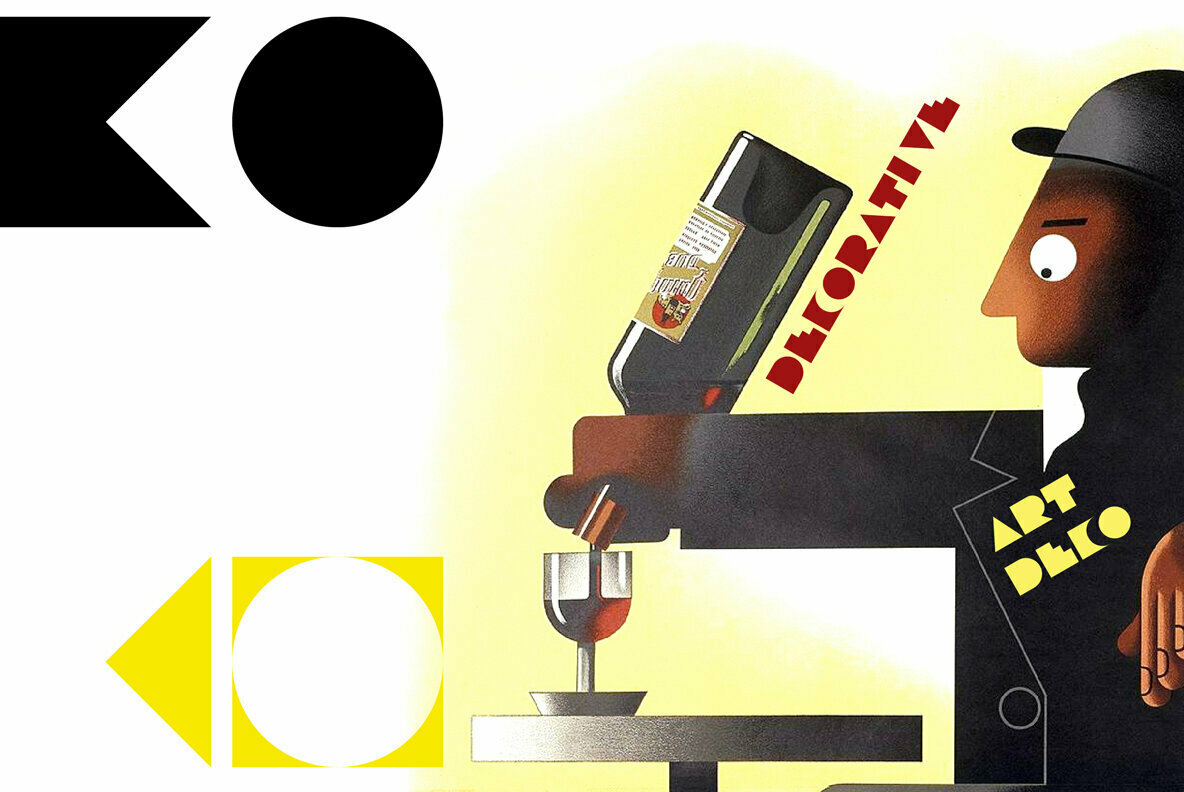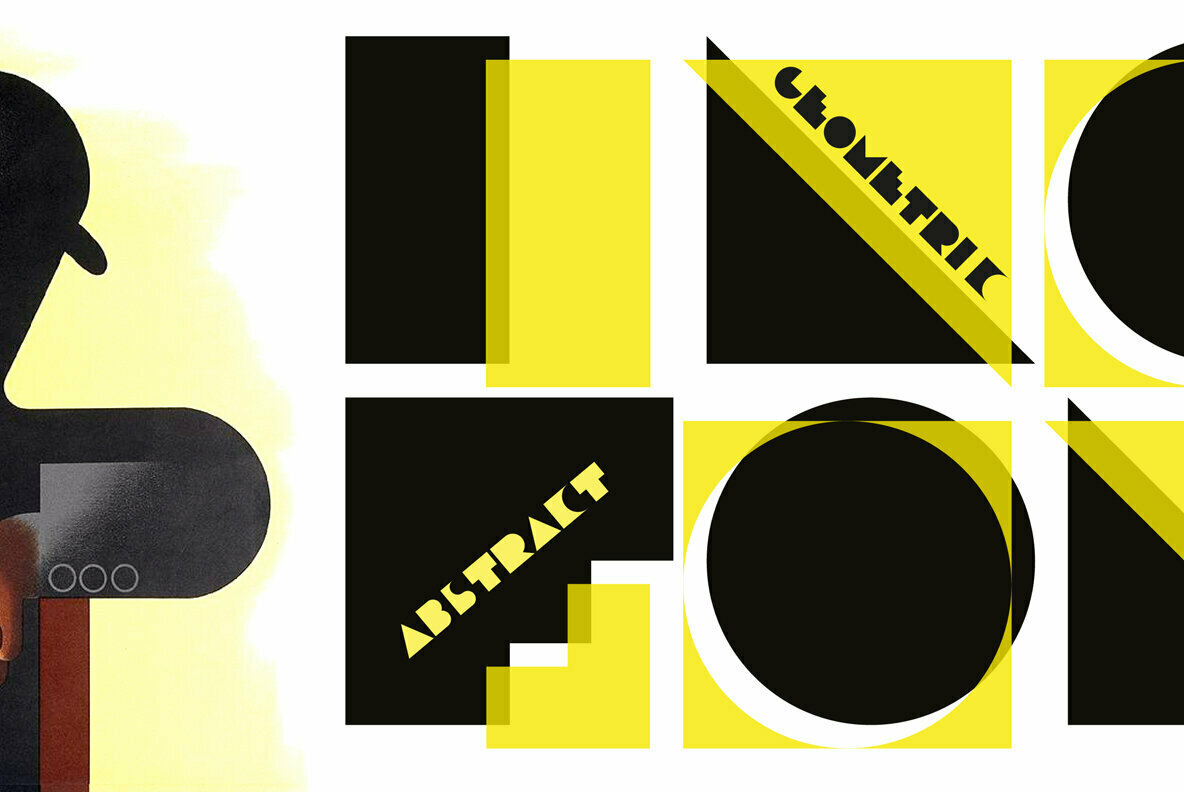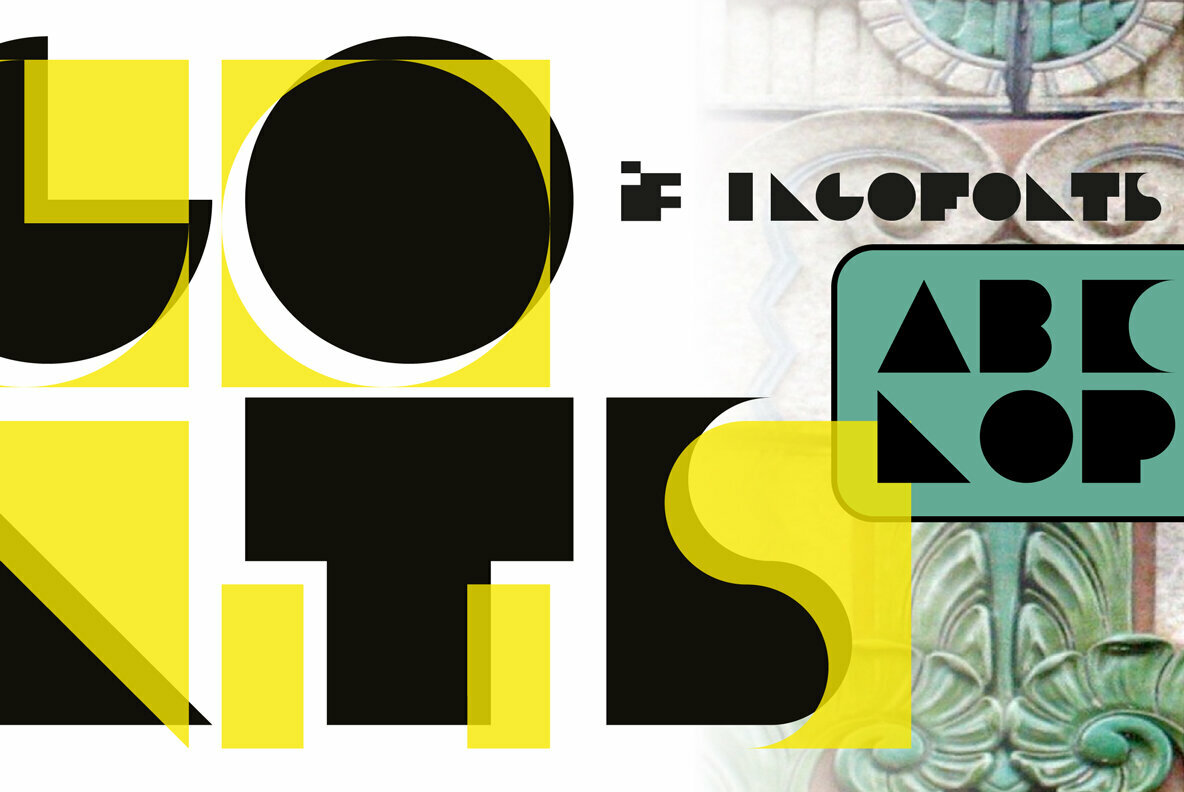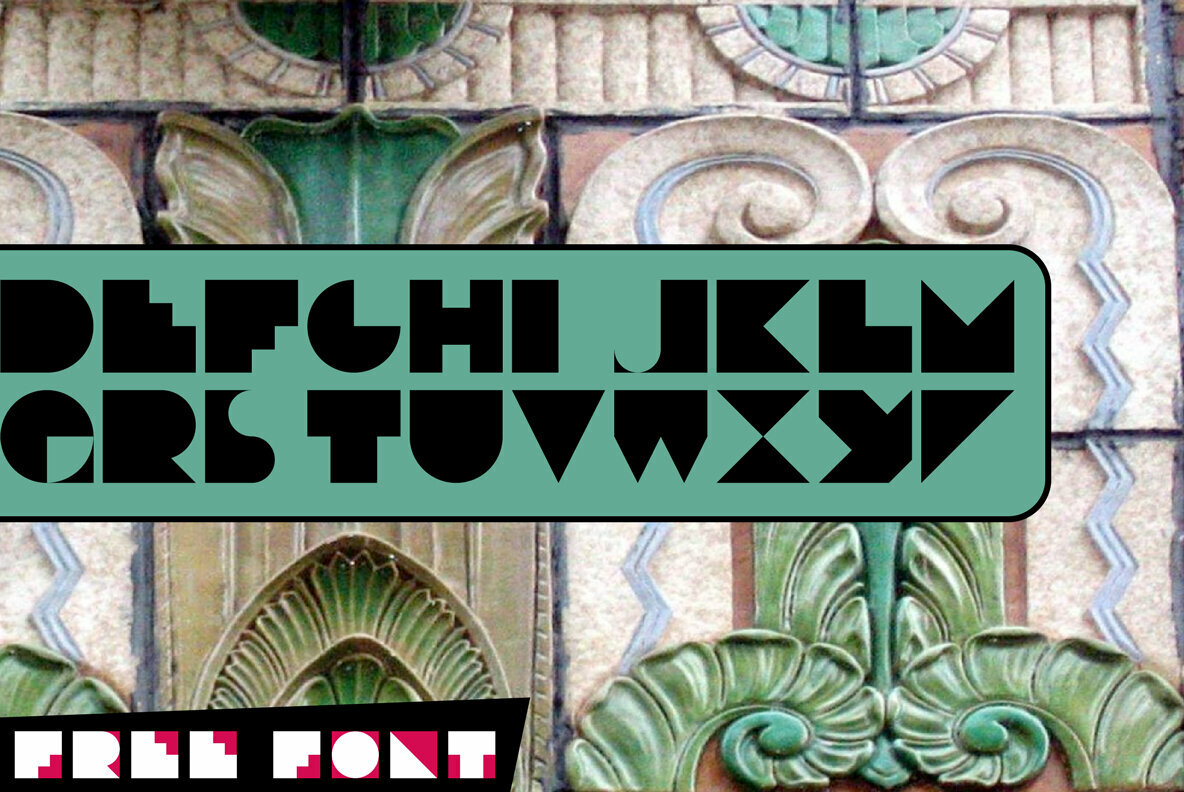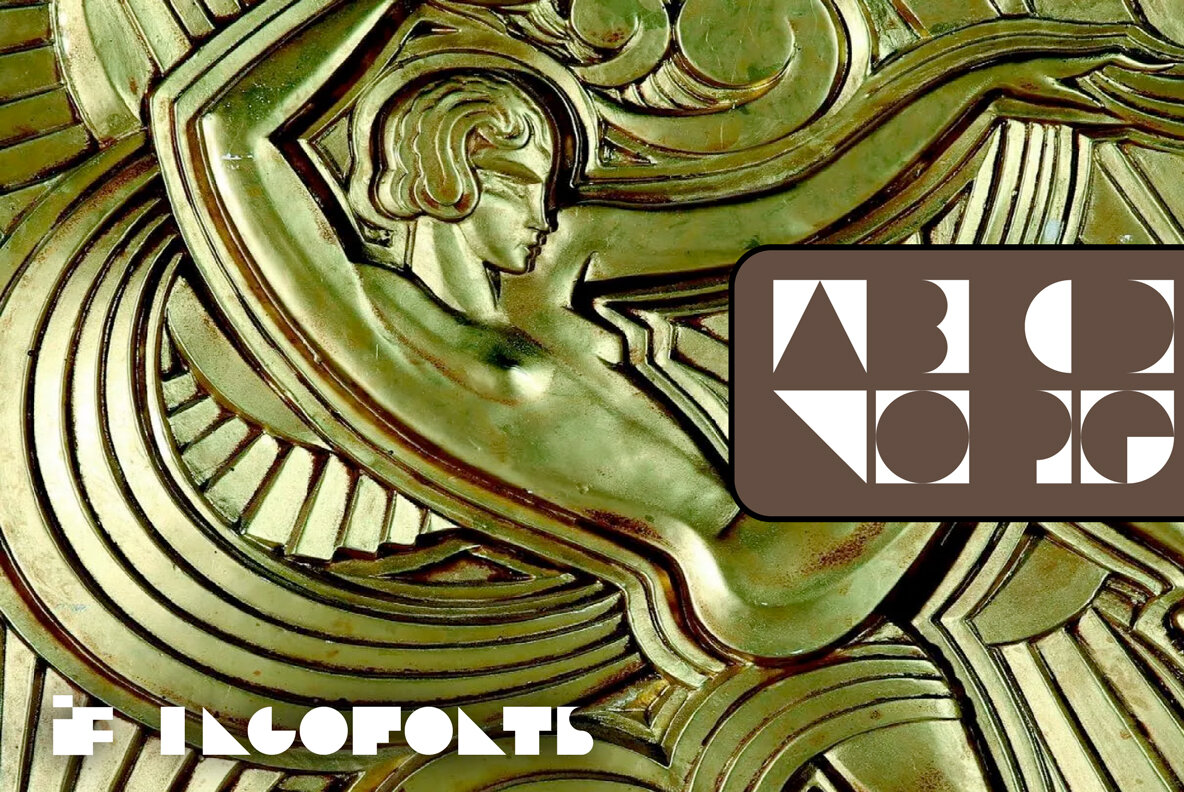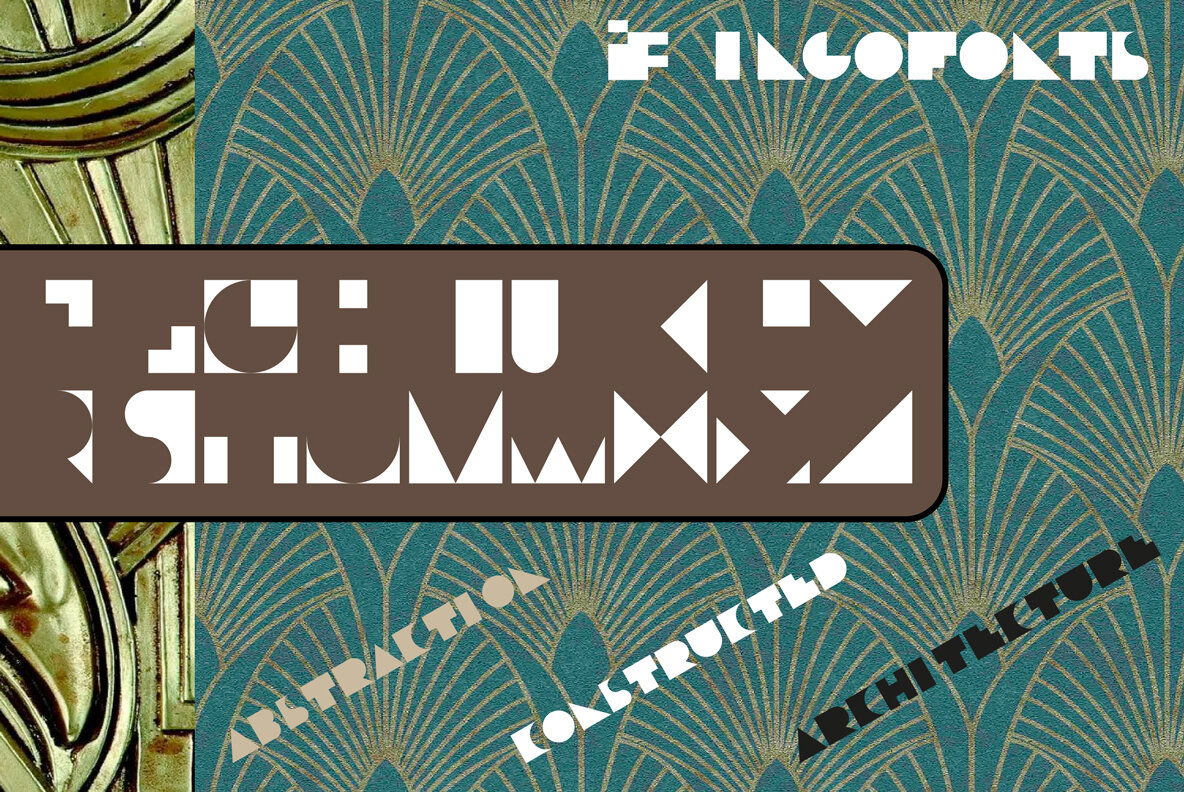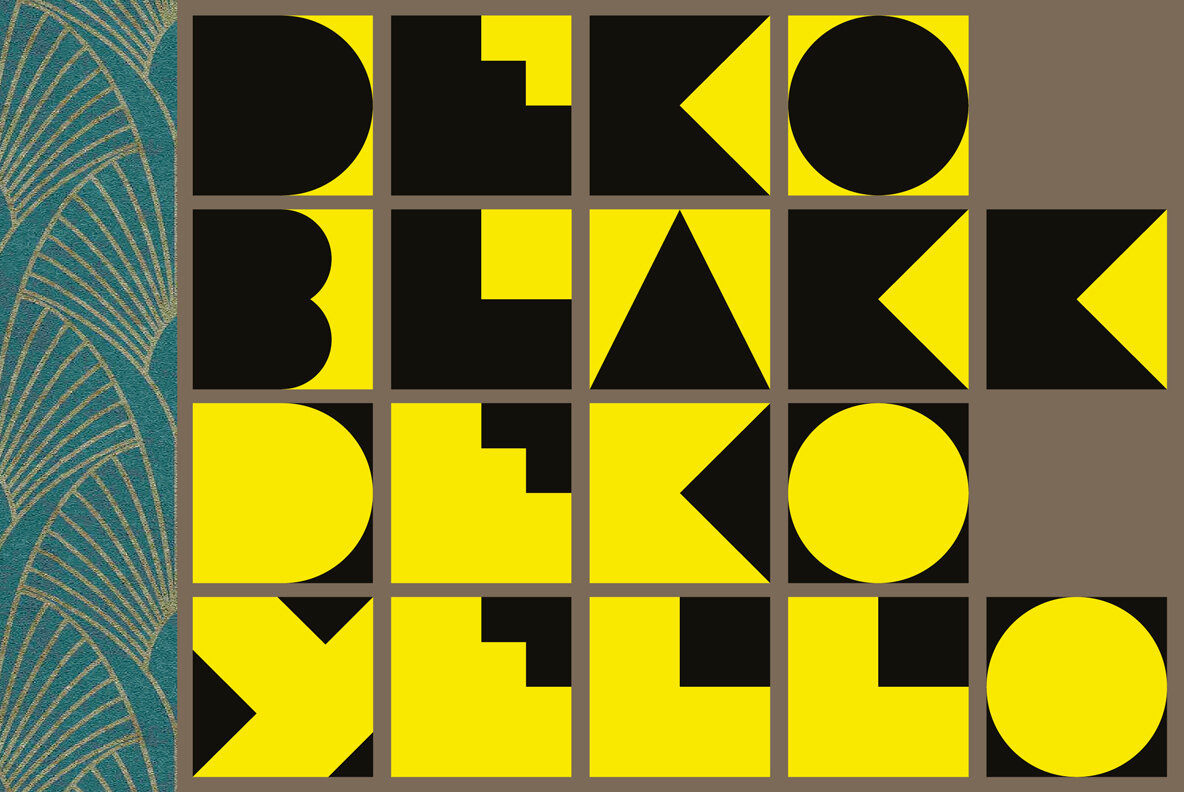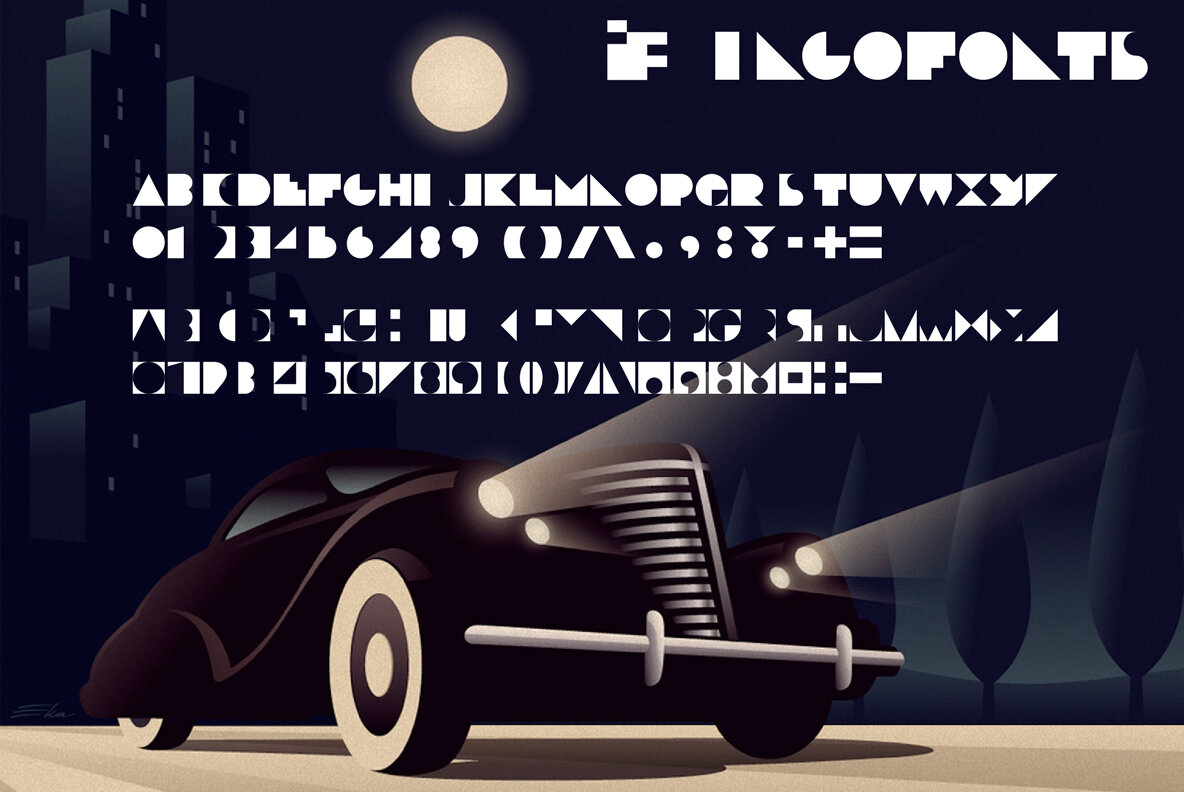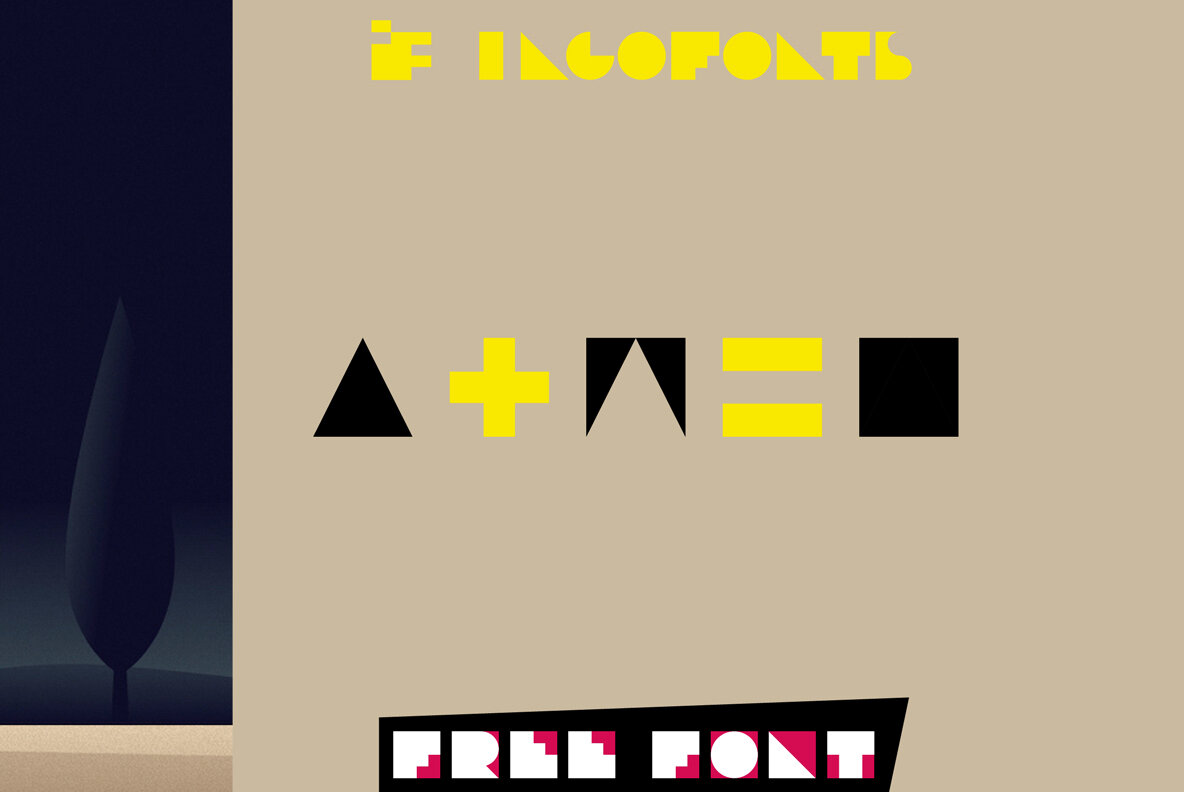
DEKO Font
Geometric decorative initials for combining.
Dékó is not really a font as such. Dékó is just decorative. But completely without frills. Geometric stems which are arranged in a square result in small graphic works of art. The characters are just barely still recognizable as letters. Each letter is its own little logo.
Stylistically, Dékó belongs to the late Art Deco, the De Stijl movement of the 1920s and Constructivism of the 1930s. But even in the 1950s and 60s there were movements in design which cultivated this type of shape language.
Dékó consists of two fonts: Dékó Blakk and Dékó Yello. Both contain the exact same characters with the exact same adjustment but with one difference:
Dékó Blakk represents the positive form of the letters whereas the coordinating negative form is found in Dékó Yello.
Together, one on top of the other, they result in a full square for each letter consisting of a foreground and background. Depending on the combination of both fonts, vivid effects are more or less attained.